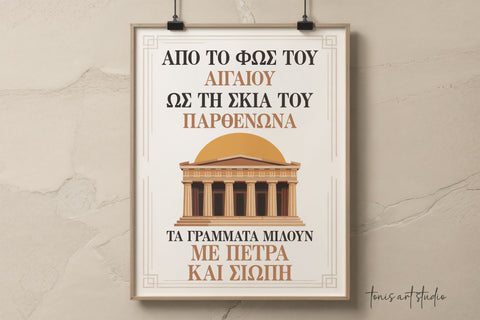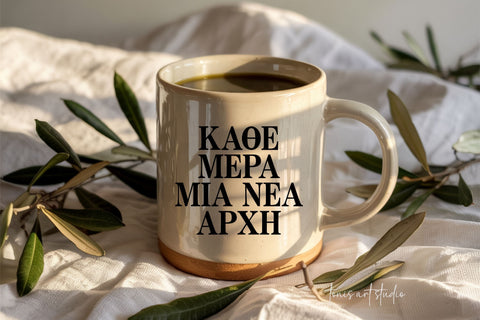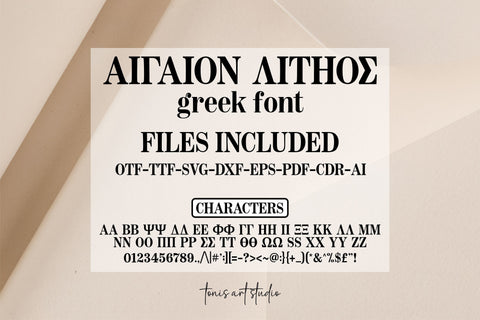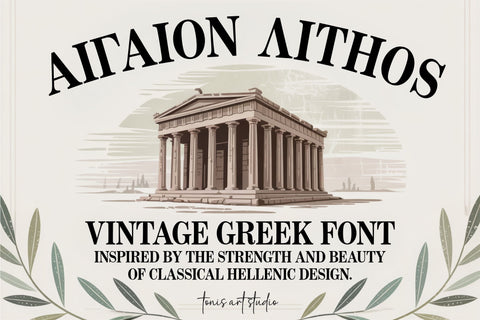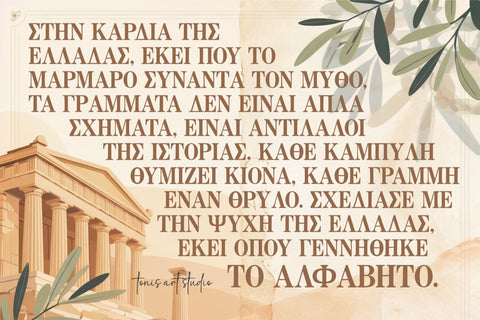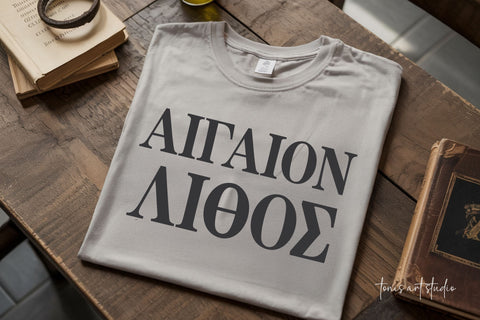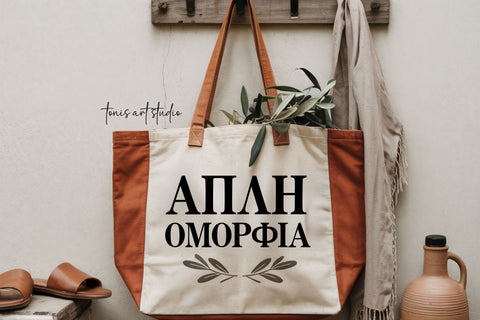
Aegean Stone Greek Font – Classical Serif Display Typeface
Aegean Stone is a vintage Greek-style serif font inspired by the elegance of classical Hellenic design. Featuring uppercase Greek letters, numbers, and symbols, it’s perfect for branding, logos, packaging, and themed projects rooted in Greek heritage. Includes OTF, TTF, SVG, DXF, EPS, PDF, AI, and CDR files for full compatibility across platforms. Bold, timeless, and powerful, design like you're carving in stone.